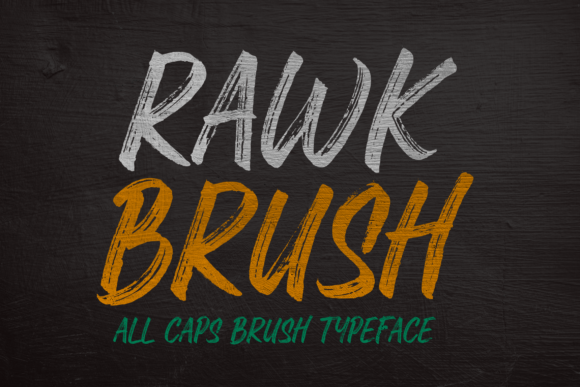
Prepare to be captivated by Rawk Brush Font, an exquisite script font family that emanates both charm and authenticity, designed with meticulous care by the talented hptypework. This remarkable font, inspired by the harmonious union of a brush pen and pencil, embodies the essence of creativity and uniqueness.
Adorn your projects with the allure of Rawk Brush Font and experience the transformation of ordinary into extraordinary. Unleash your inner artist and let your imagination soar as you witness the magic of this font breathe life into your designs. Whether you're crafting heartfelt letters, designing eye-catching logos, or adding a touch of elegance to your social media posts, Rawk Brush Font is your perfect partner.
This font family offers a diverse range of weights and styles, empowering you to tailor your designs to perfection. Its versatility extends from playful and whimsical to sophisticated and timeless, ensuring a seamless blend with any project you envision. Create stunning headers that command attention, mesmerizing logos that leave a lasting impression, and captivating social media graphics that ignite engagement.
Embrace the beauty of handwritten artistry with Rawk Brush Font. Its authentic and endearing nature adds a touch of warmth and personality to your creations, making them stand out from the ordinary. Whether you're a seasoned designer or just starting your creative journey, this font will elevate your projects to new heights.